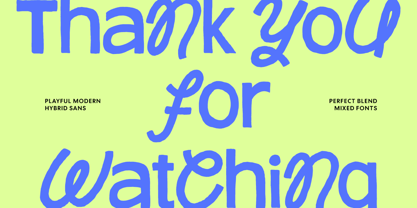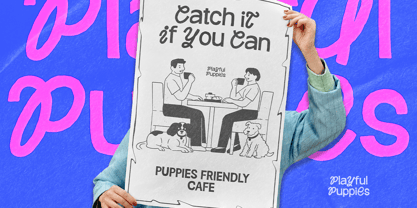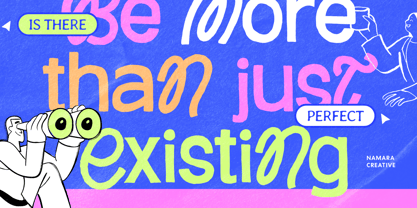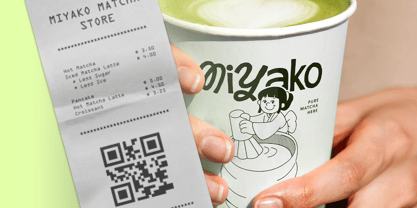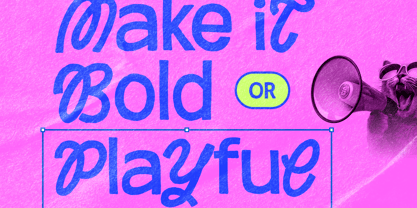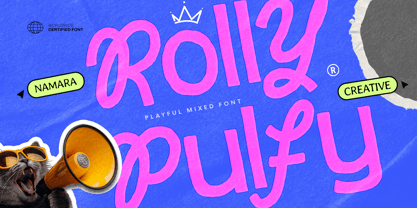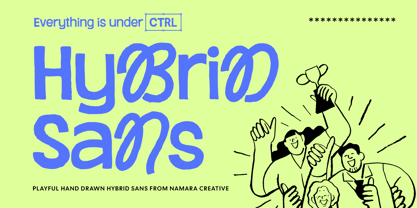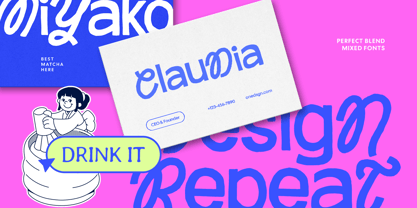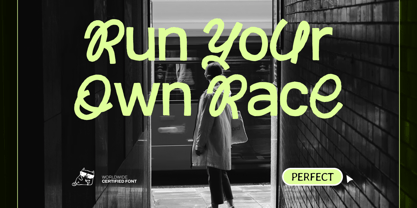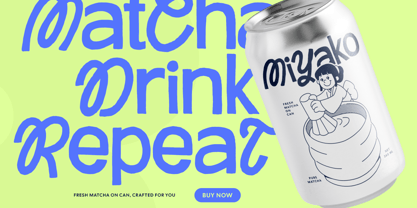
Rolly Pulfy
by Namara Creative Studio
The Rolly Pulfy Font Family was designed by Toni Setiawan and published by Namara Creative Studio. Rolly Pulfy contains 3 styles and family package options. More about this family
Playful hybrid sans typeface designed to bring joy, personality, and modern charm into your designs. Blending clean sans-serif structure with hand-drawn, rounded letterforms, Rolly Pulfy strikes a perfect balance between bold clarity and friendly expression. Crafted for creatives who want their typography to feel lively yet professional, Rolly Pulfy works beautifully across branding, packaging, posters, social media, merchandise, and editorial layouts. Its unique hybrid construction allows you to mix bold statements with soft, playful vibes-making it ideal for lifestyle brands, food & beverage, kids products, startups, and creative campaigns. Key Features : Playful Hybrid Sans – a fusion of clean sans shapes and hand-drawn character. Bold & Readable – strong presence without sacrificing legibility. Uppercase, Lowercase and Multilingual Support. Alternates & Ligatures for expressive typography, Perfect for Mixed Font Pairing. Ideal Use Cases : Brand identity & logo design Packaging and product labels Posters, flyers, and headlines Social media graphics & ads Apparel, merchandise, and packaging Editorial layouts and creative presentations Rolly Pulfy is designed to make it bold or keep it playful—giving you full creative control while maintaining a cohesive, modern look. If you’re looking for a typeface that feels fresh, expressive, and versatile, Rolly Pulfy is the perfect match. Add personality to your typography. Make it bold. Make it playful. Make it Rolly Pulfy.